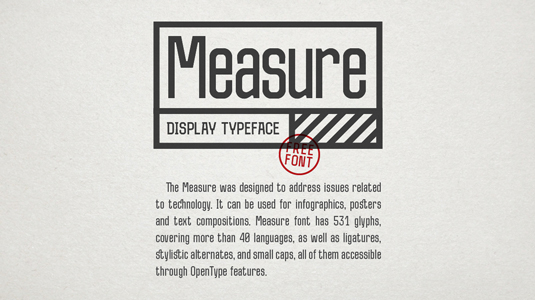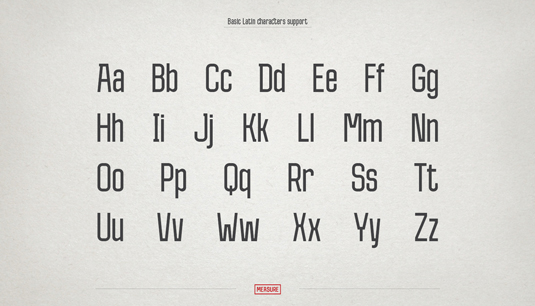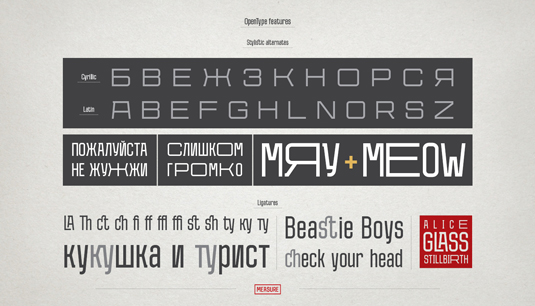
Font of the day: Measure
Measure by Sergey Godovalov
Create eye-catching posters, infographics and much more with today's typeface of choice, Measure by designer Sergey Godovalov.